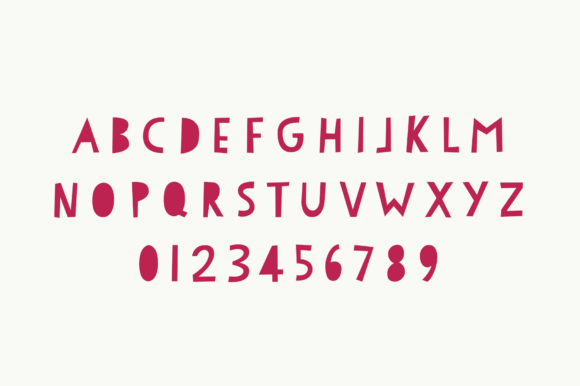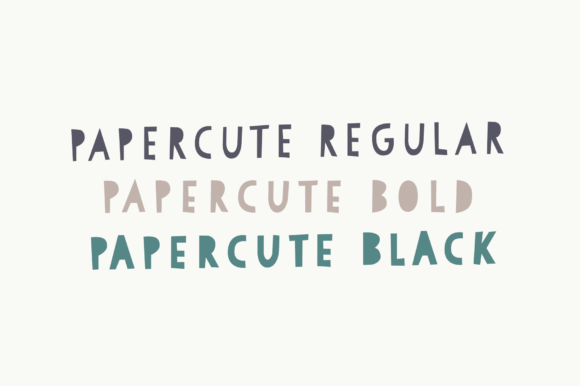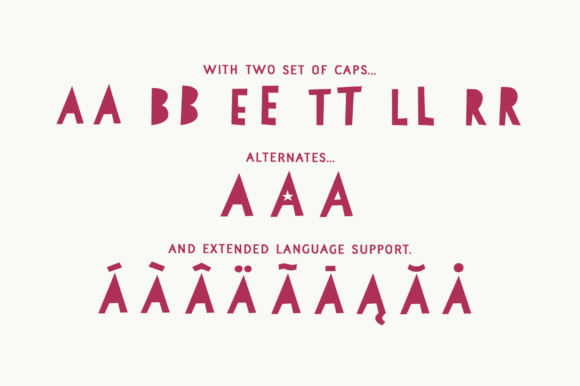
Papercute Font: A Playful Display Font + Cute Paper Ornaments!
About the Papercute Font
Experience the unique personality of Papercute Font, a font designed for impact. Papercute is a cute hand-drawn display font. Inspired by paper cutting, this font is easy to read and easy to play with. Small caps are a little different than caps to create alternative glyphs. It also comes with a set of cute paper ornaments to enhance your designs.
Papercute’s playful charm makes it ideal for headlines, short text blocks on packaging, or eye-catching elements in children’s book illustrations. Its hand-drawn quality adds a touch of whimsy to branding projects for artisan goods or playful businesses. However, avoid using it for large bodies of text or UI elements; its informal nature reduces readability in extended use.
The lightheartedness of Papercute pairs well with clean sans-serif fonts like Open Sans for body copy, creating a balanced contrast. For a more sophisticated feel, consider pairing it with a delicate serif like Lora, allowing Papercute to stand out as an expressive headline font. A geometric sans-serif like Montserrat could also work, offering a modern counterpoint to Papercute’s handcrafted aesthetic.
Overall, Papercute projects a friendly and approachable personality. Its handcrafted detail brings a sense of warmth and handmade quality, making it perfect for brands aiming for a charming and approachable image.